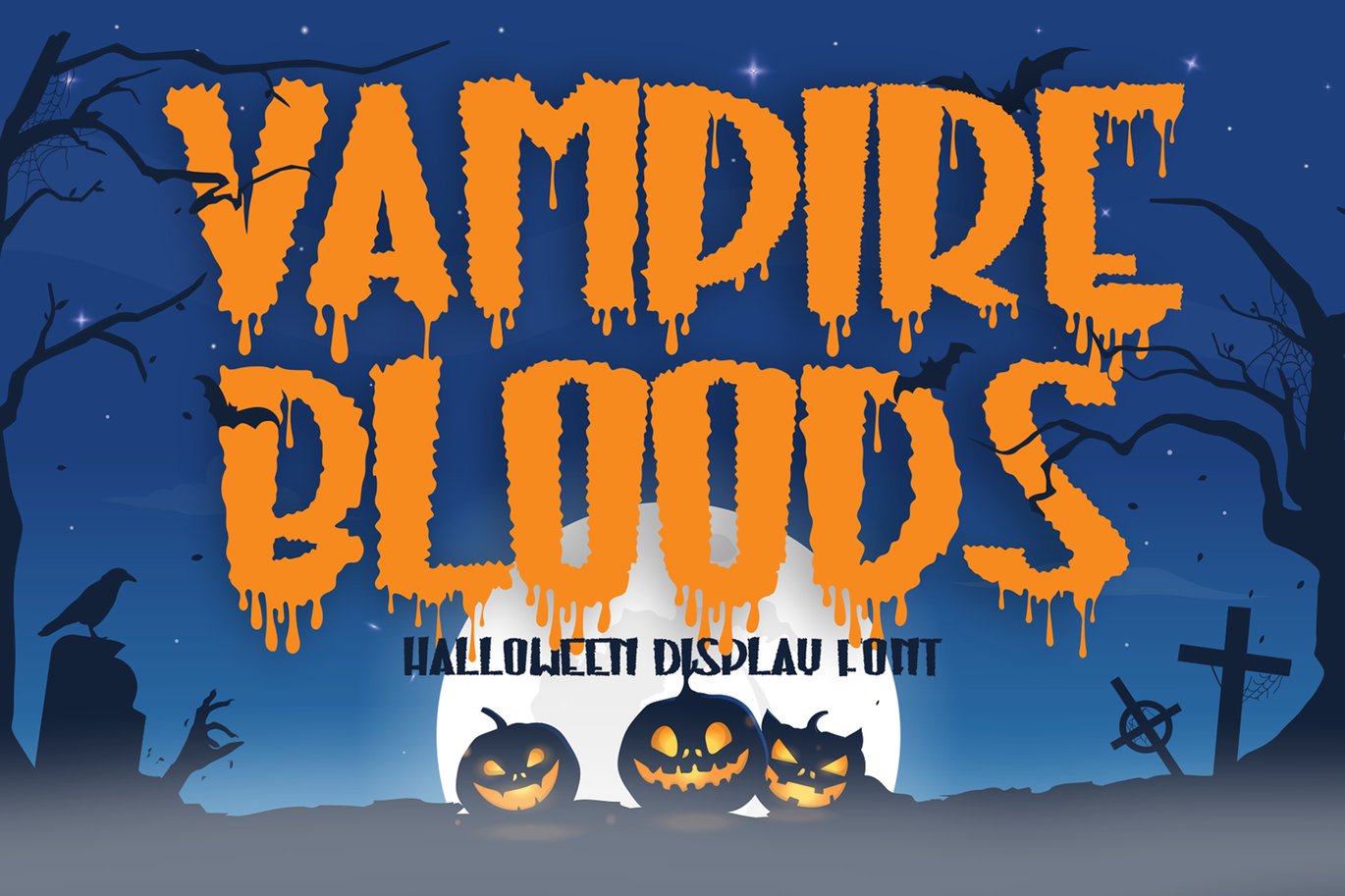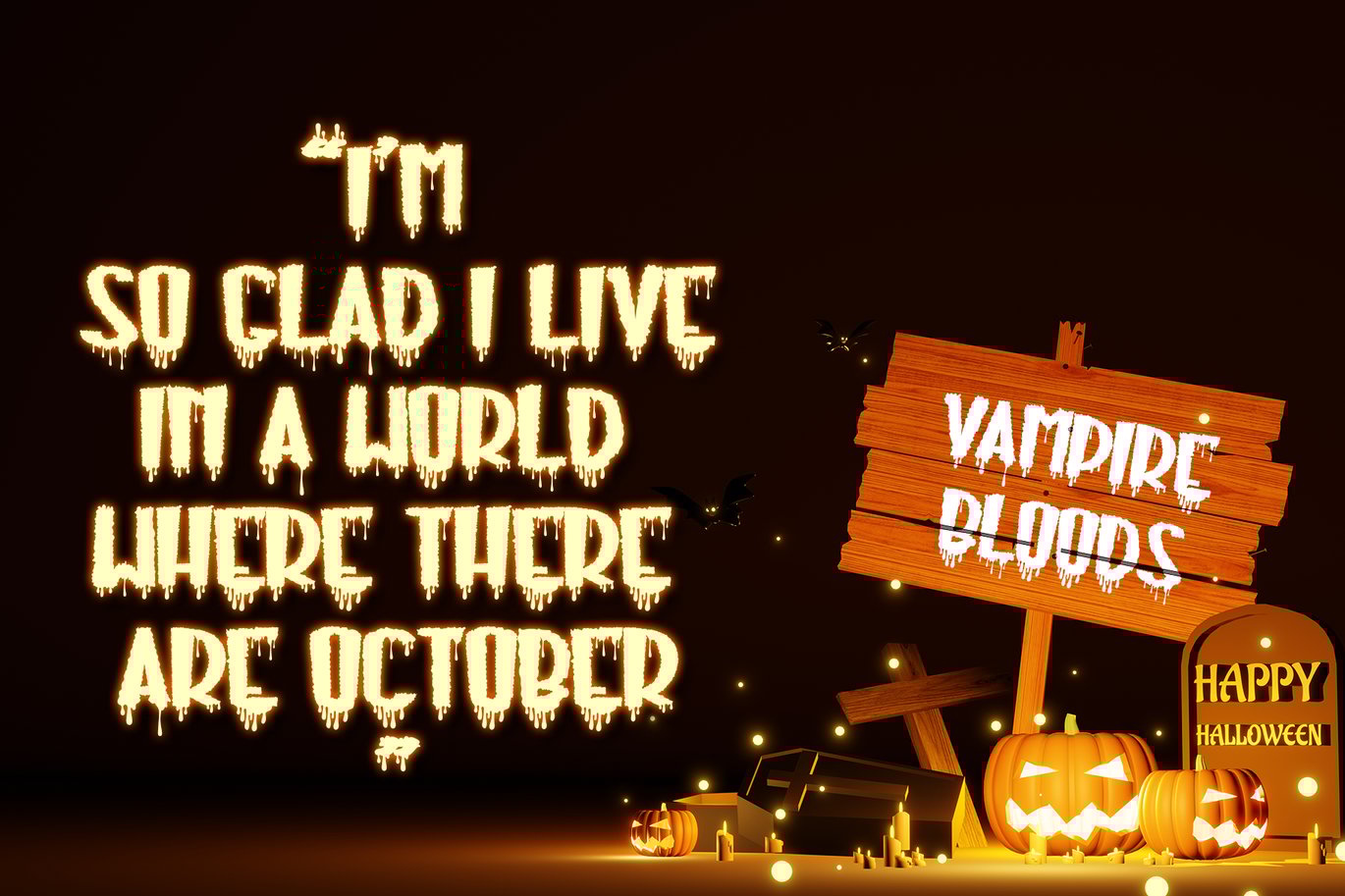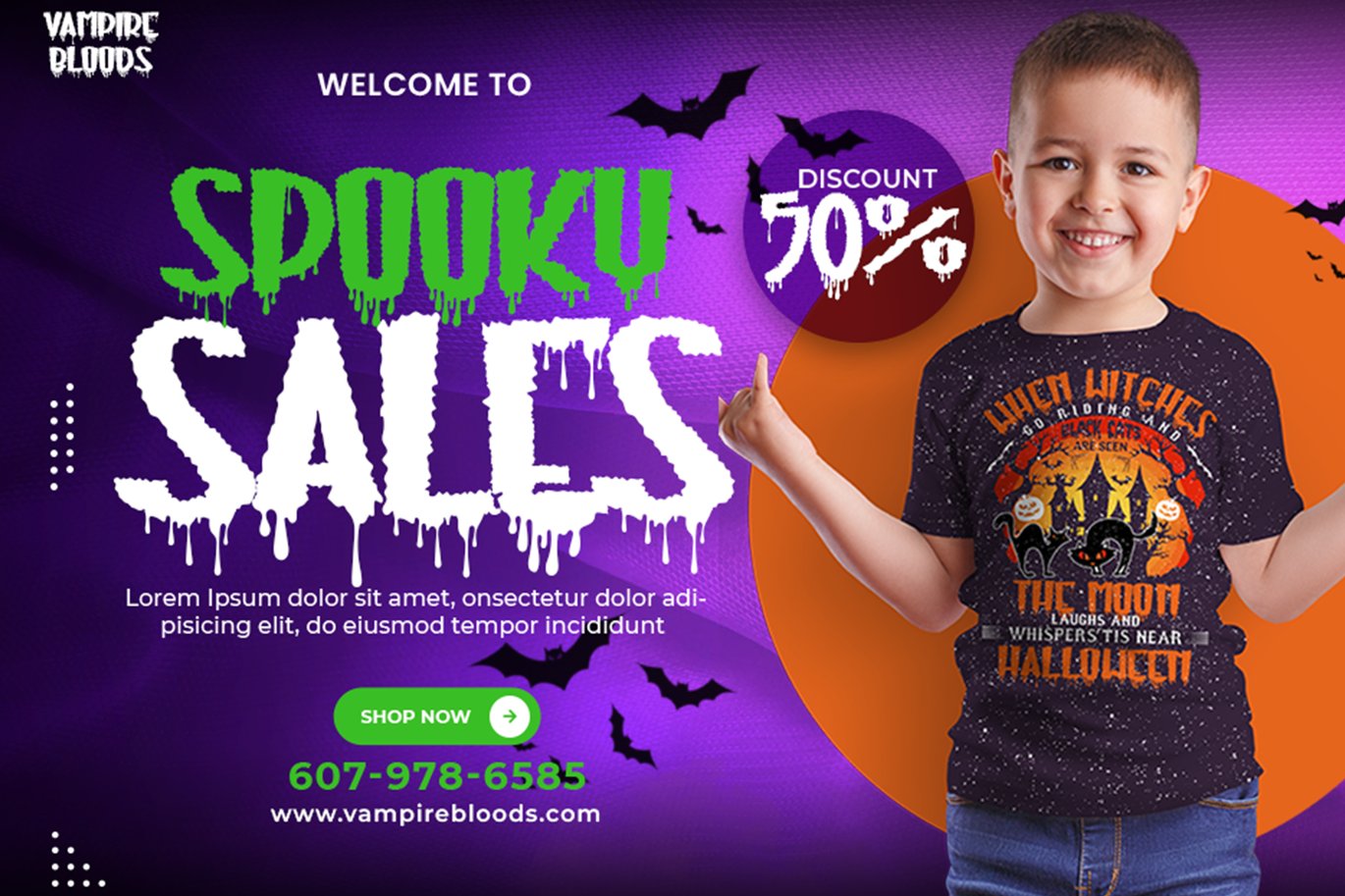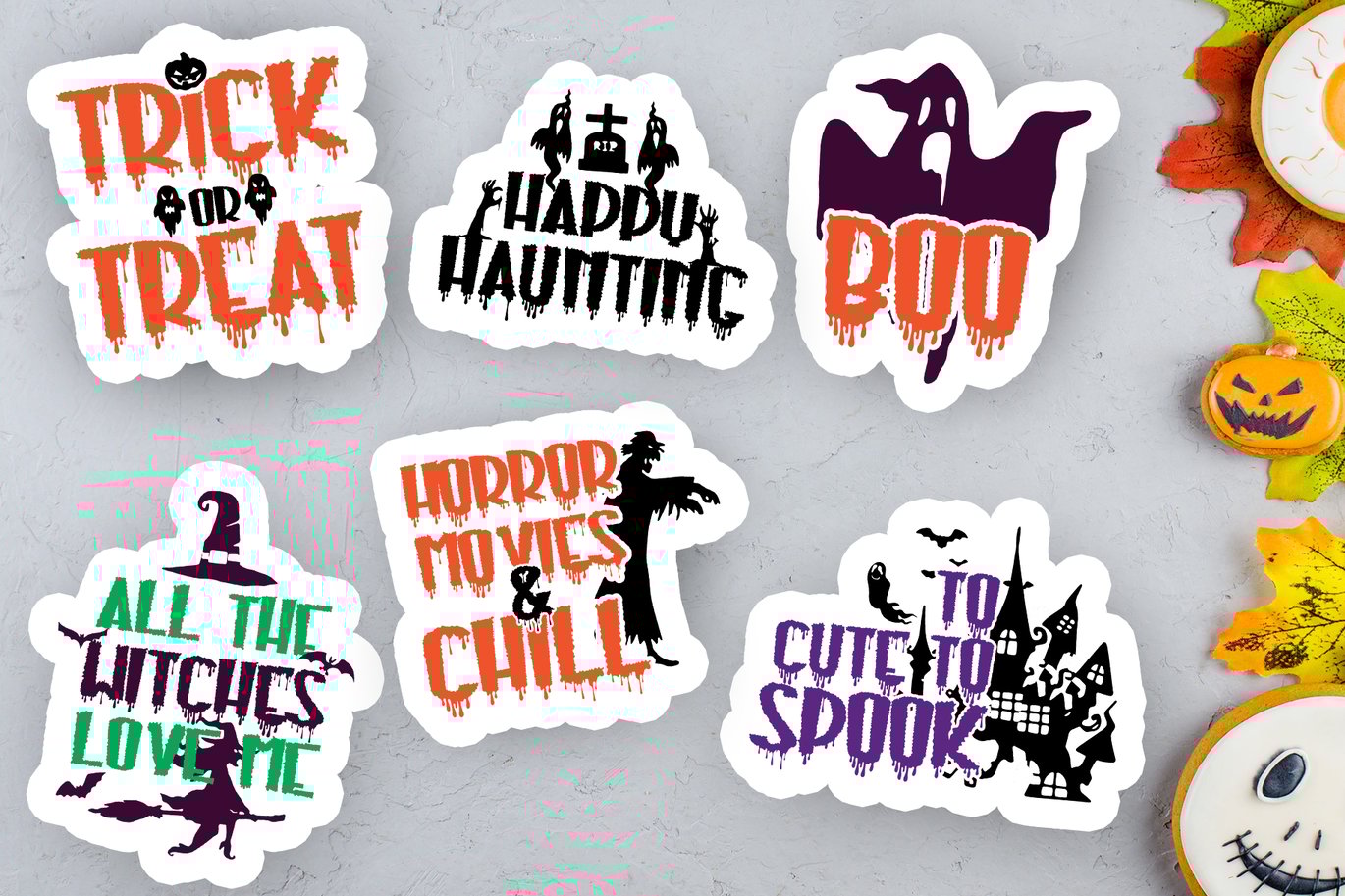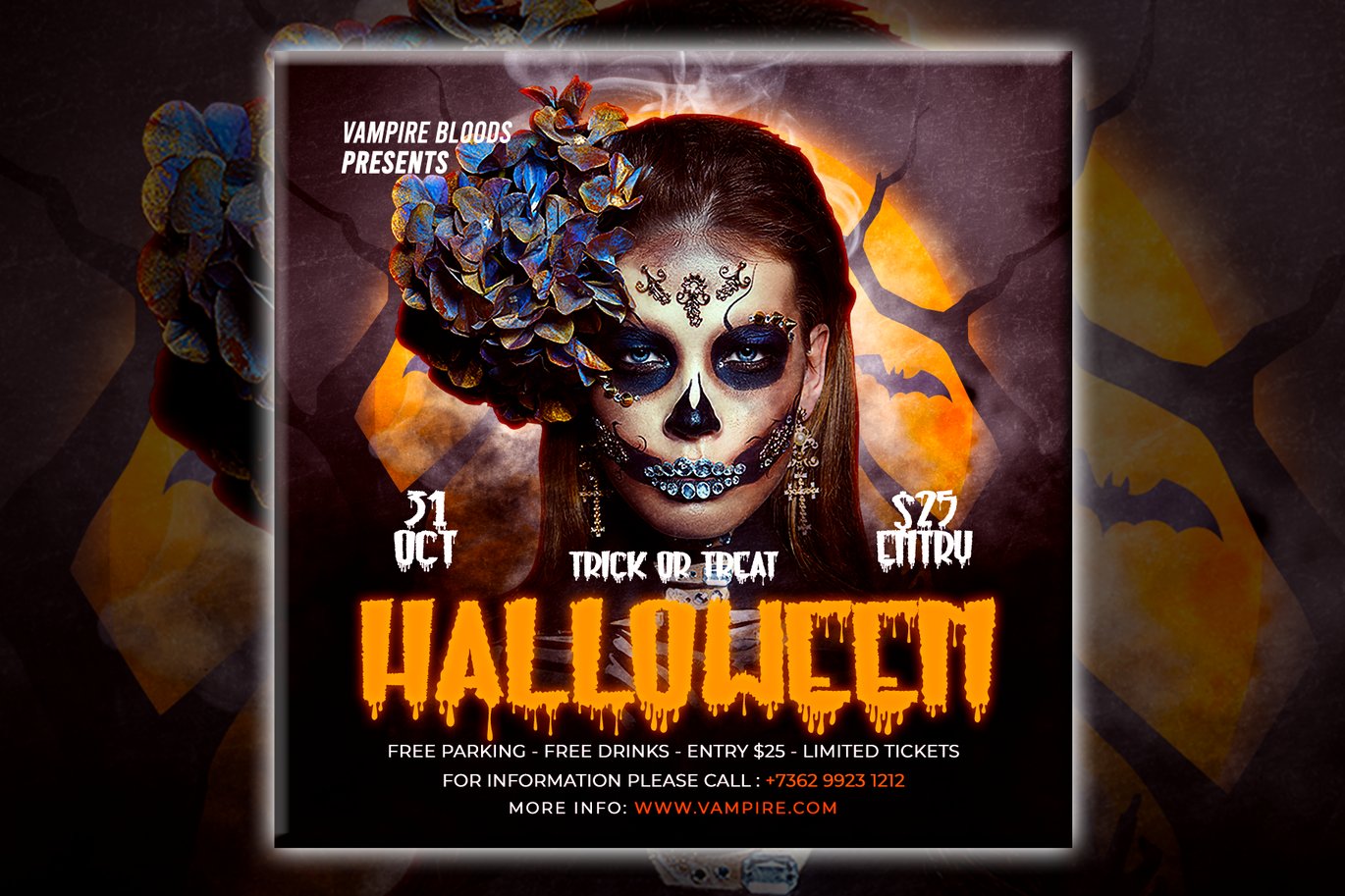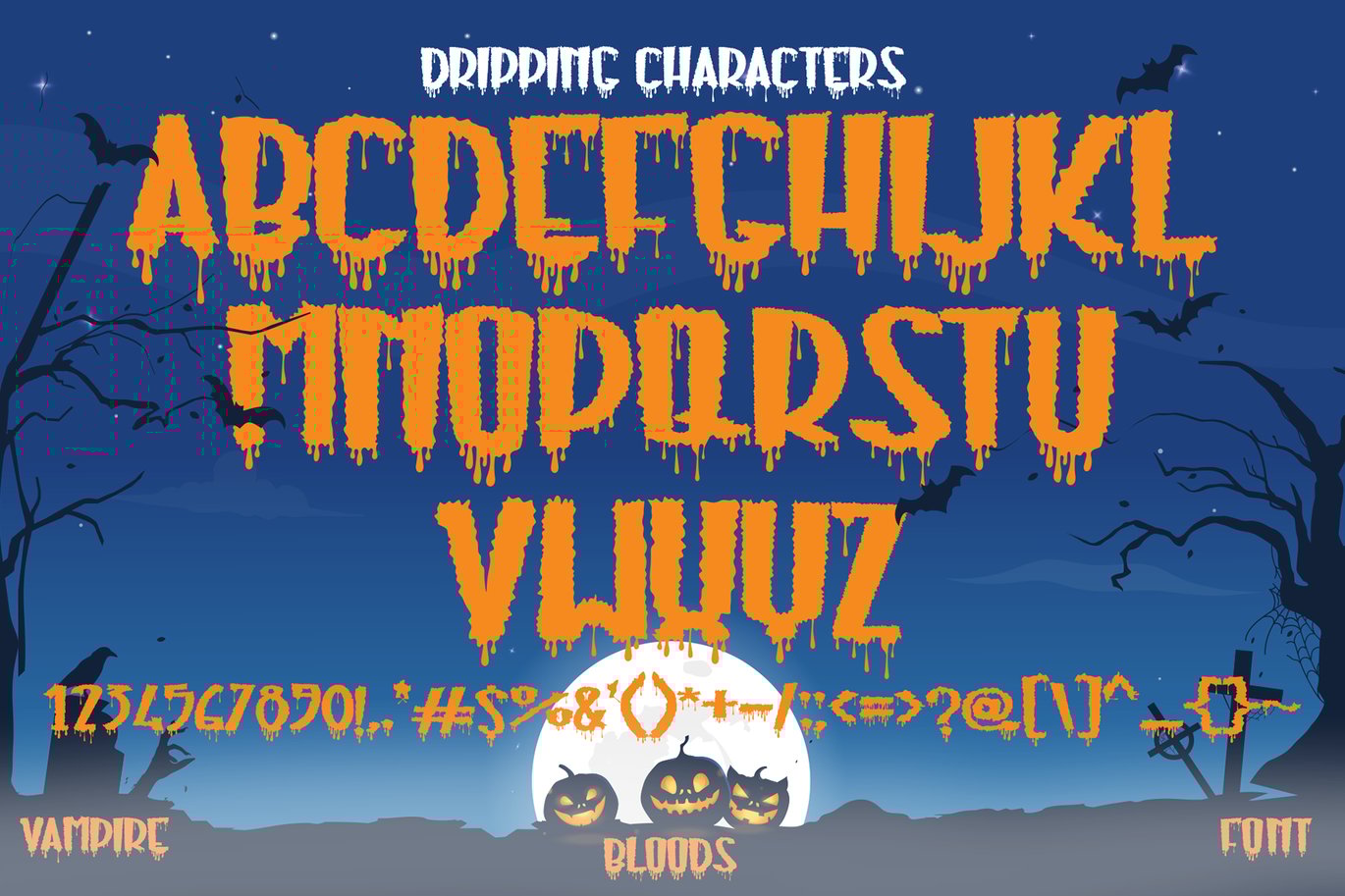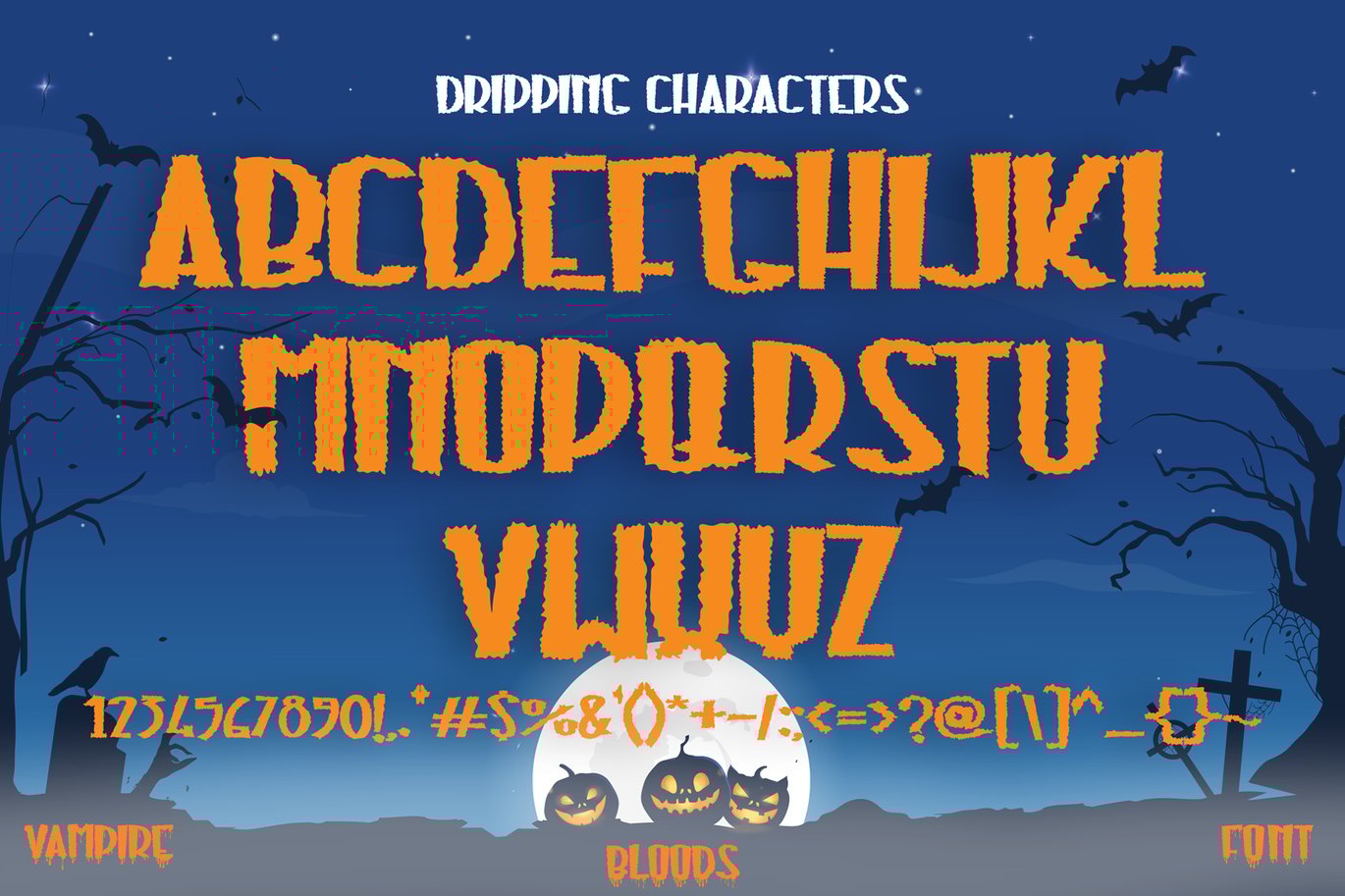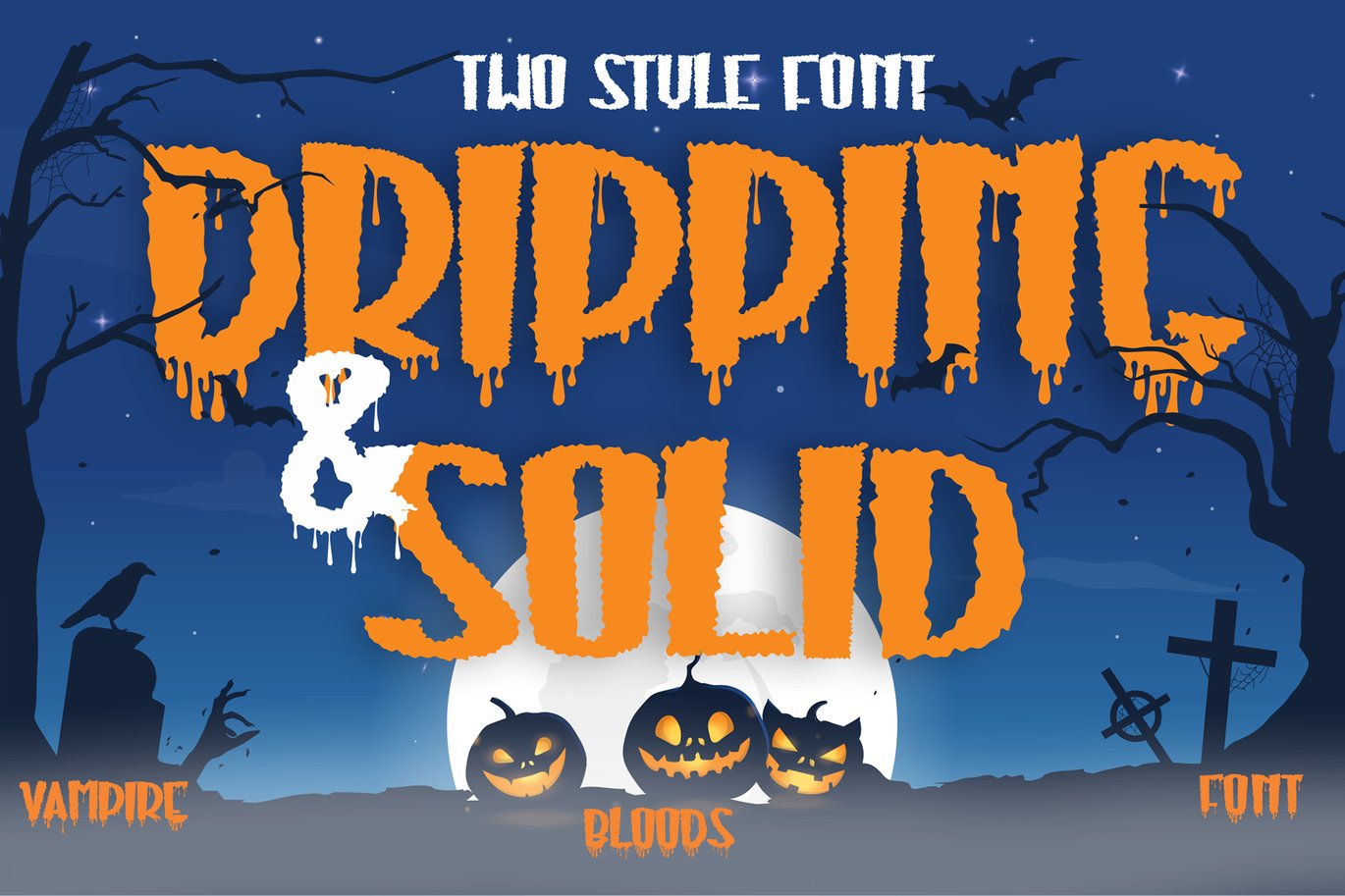
Vampire Bloods – Dripping Halloween Font
Vampire Bloods is an incredibly unique horror display font with 2 styles Font Dripping and solid style with a jagged Outline. Add this font to your favorite Halloween-themed ideas and notice how it makes them come alive. Vampire Bloods is perfect for posters, packaging, banners, advertising, and more.